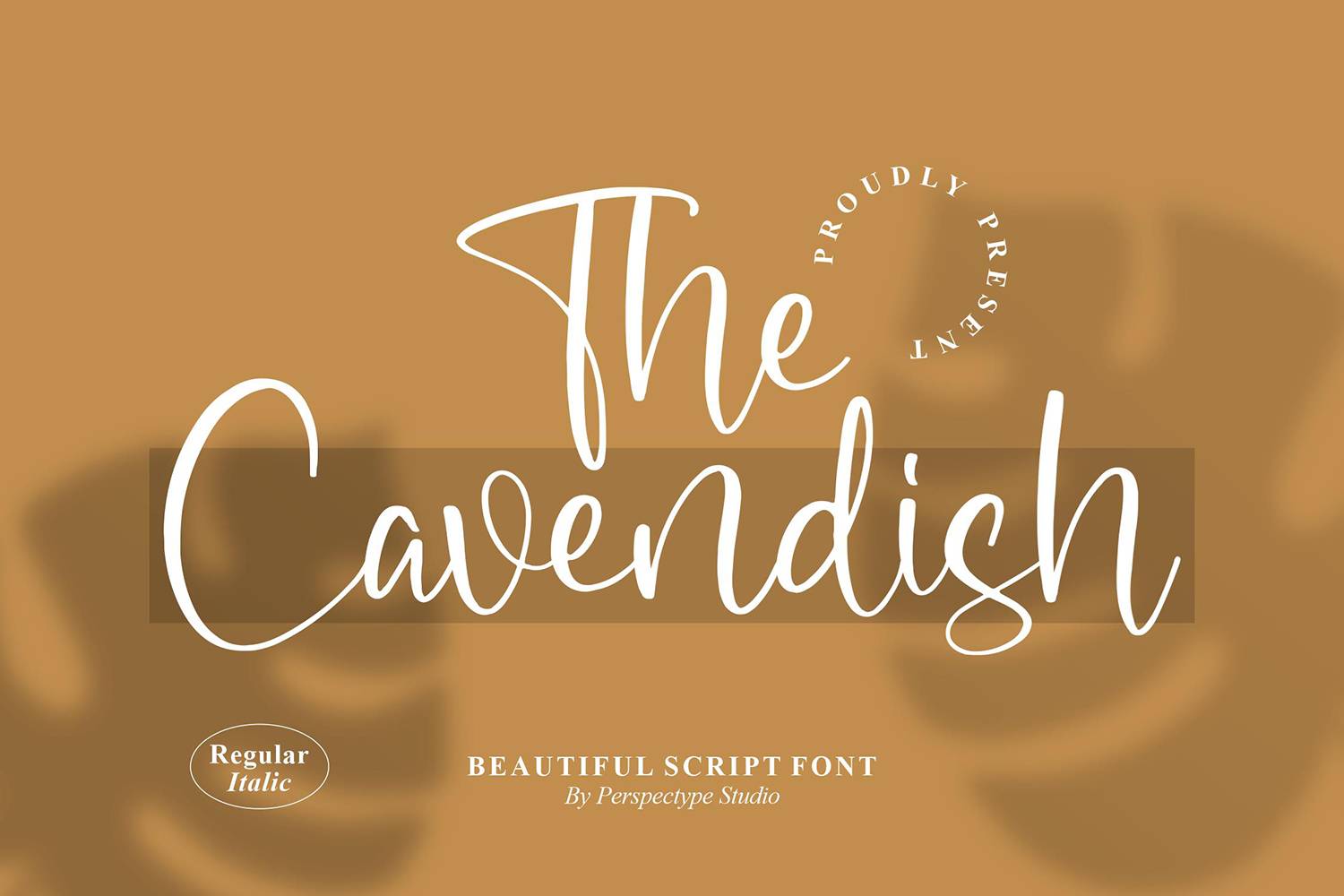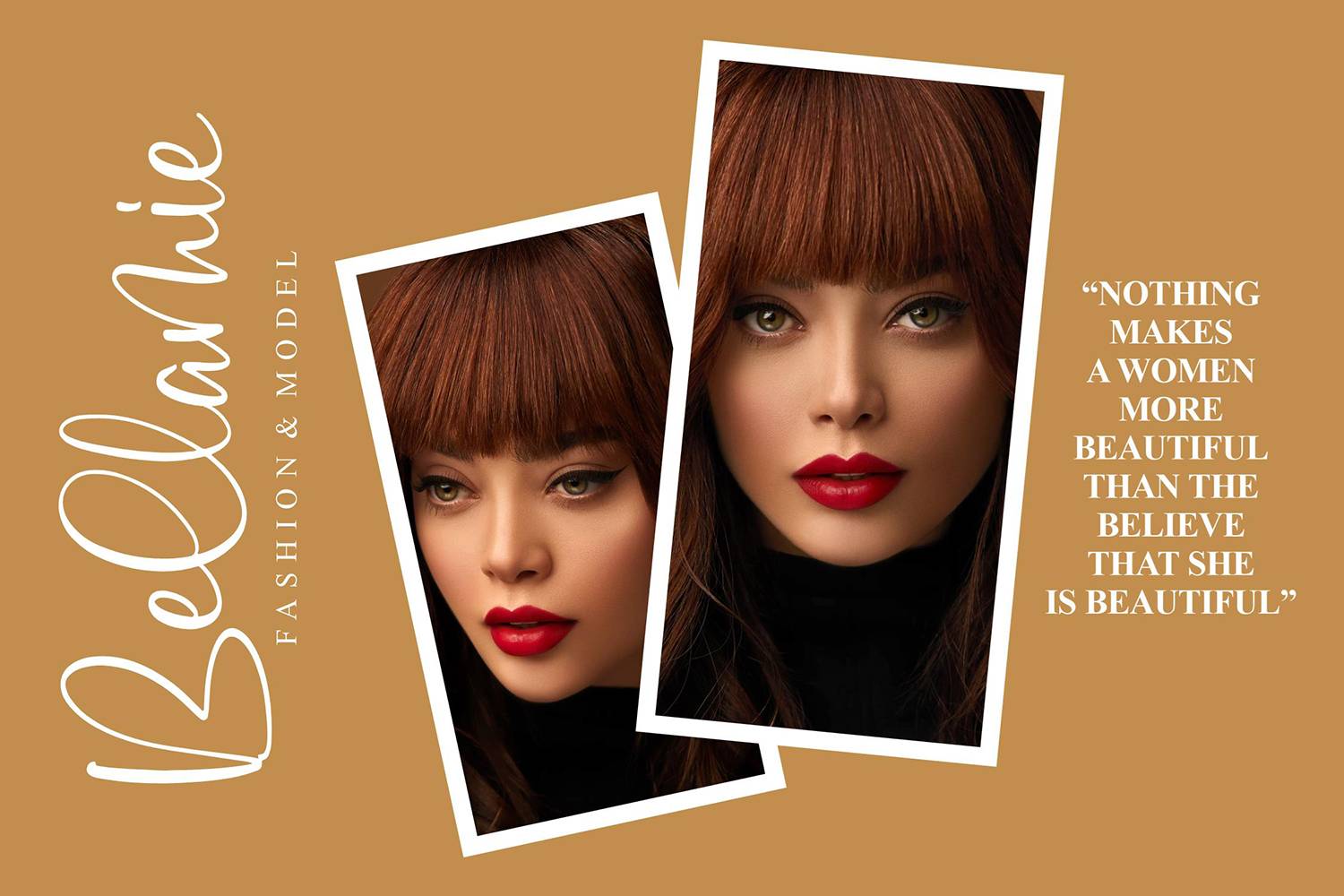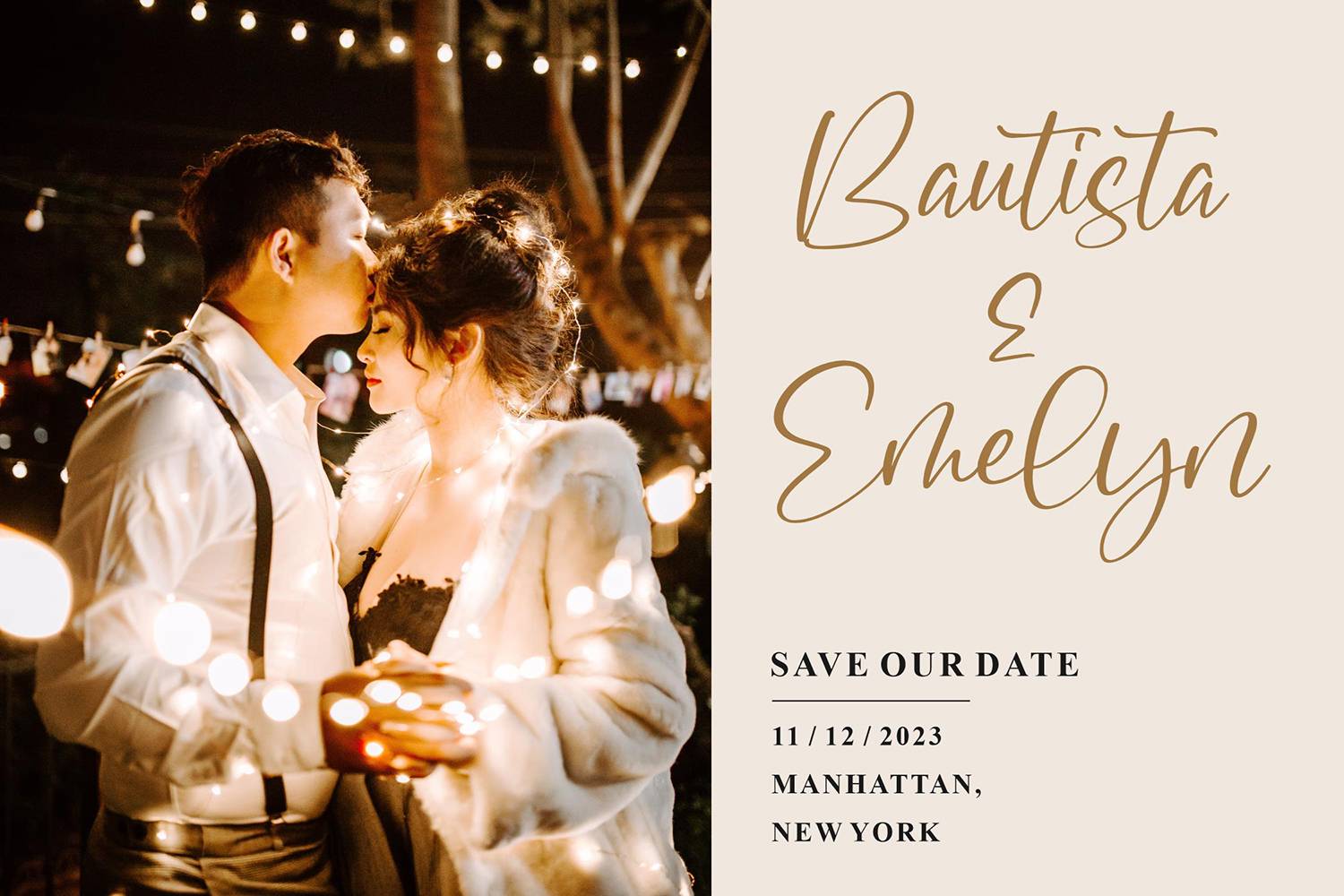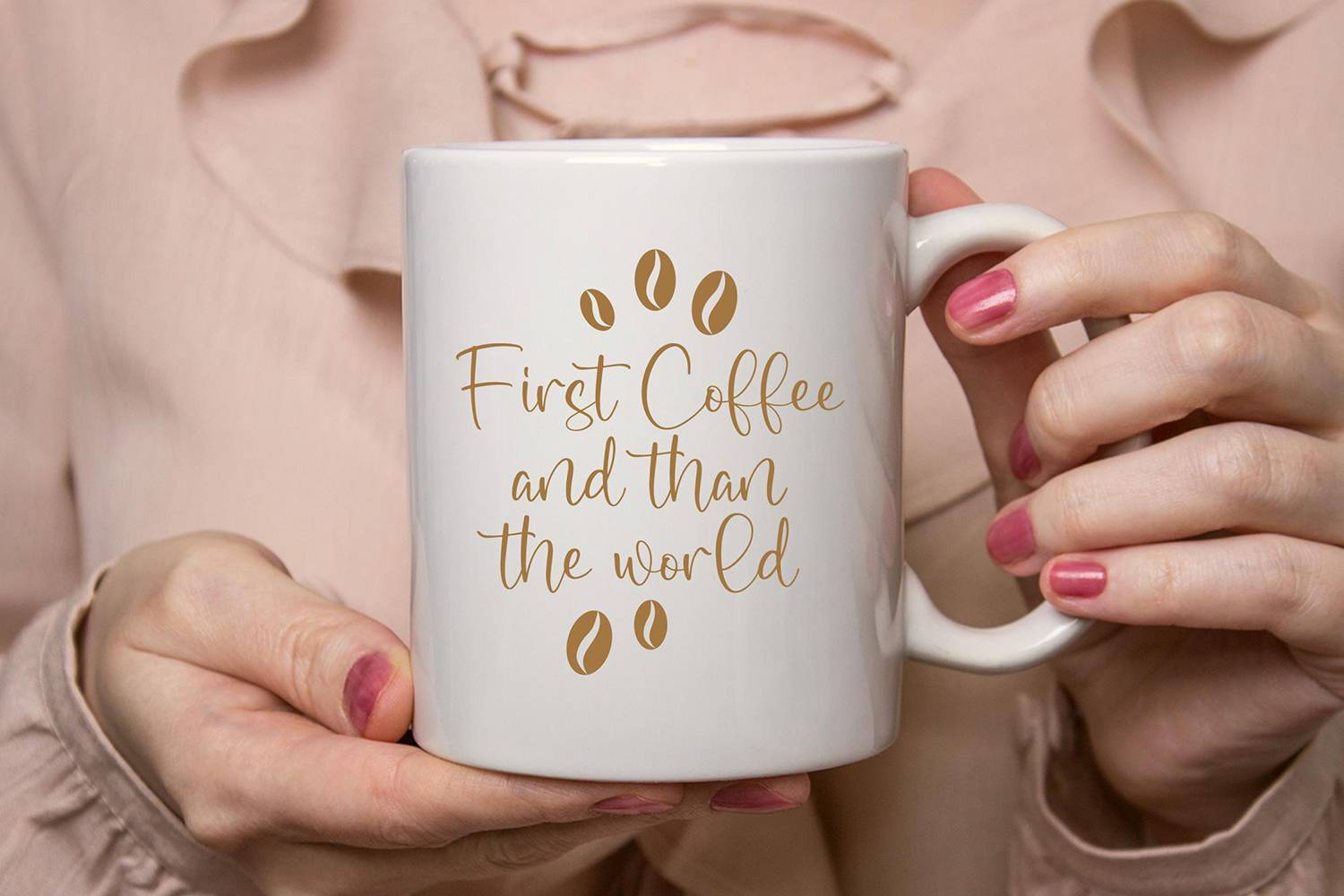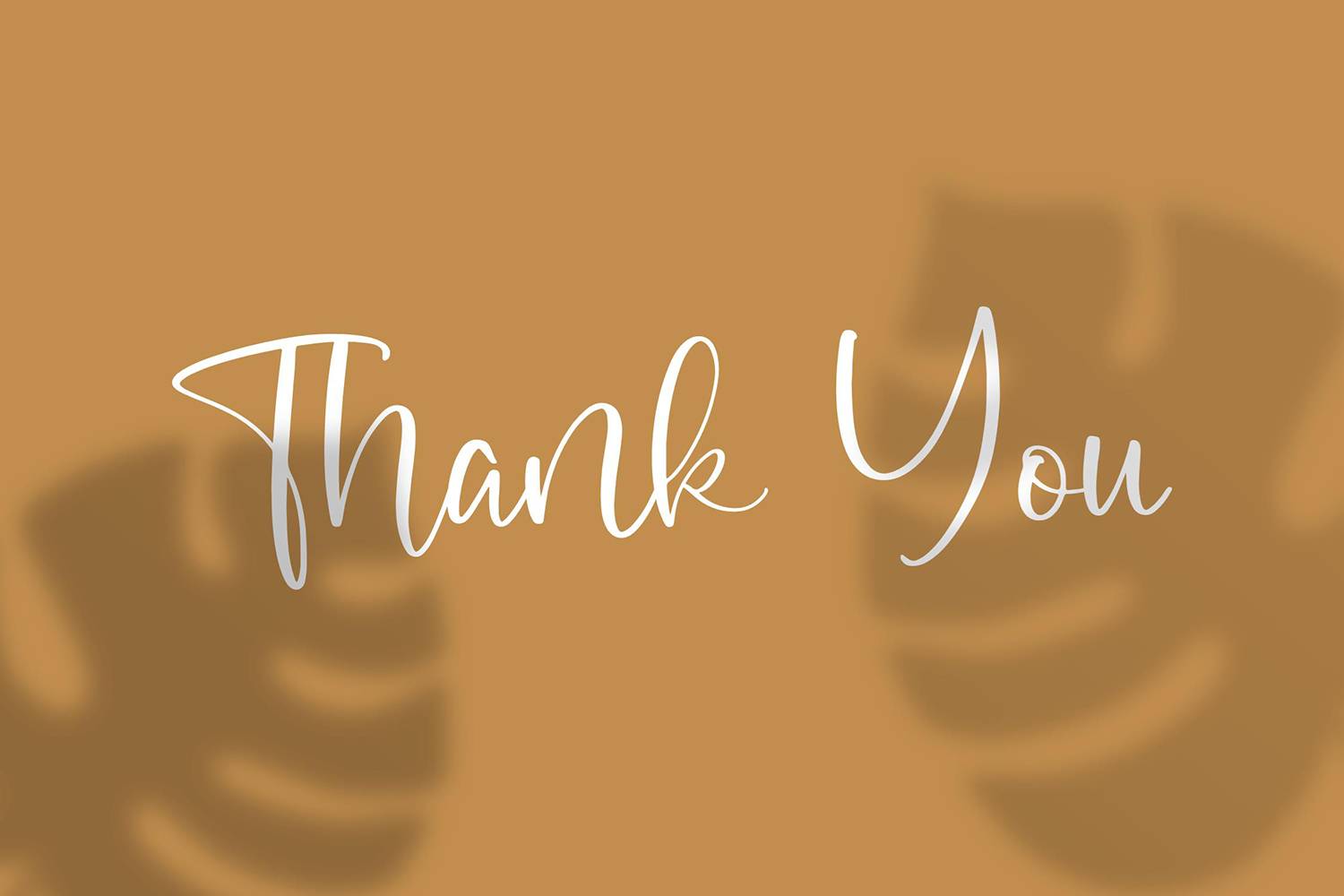
Cavendish is a delicate, handwritten script font with a playful and elegant feel. Its slender strokes, varying line weight, and flowing letterforms give it a personal, friendly character, making it ideal for invitations, branding, and creative projects where a charming and approachable touch is desired. The font works well for headlines and decorative uses, adding a graceful, casual flair without sacrificing readability.
Cavendish Font
About Cavendish Font